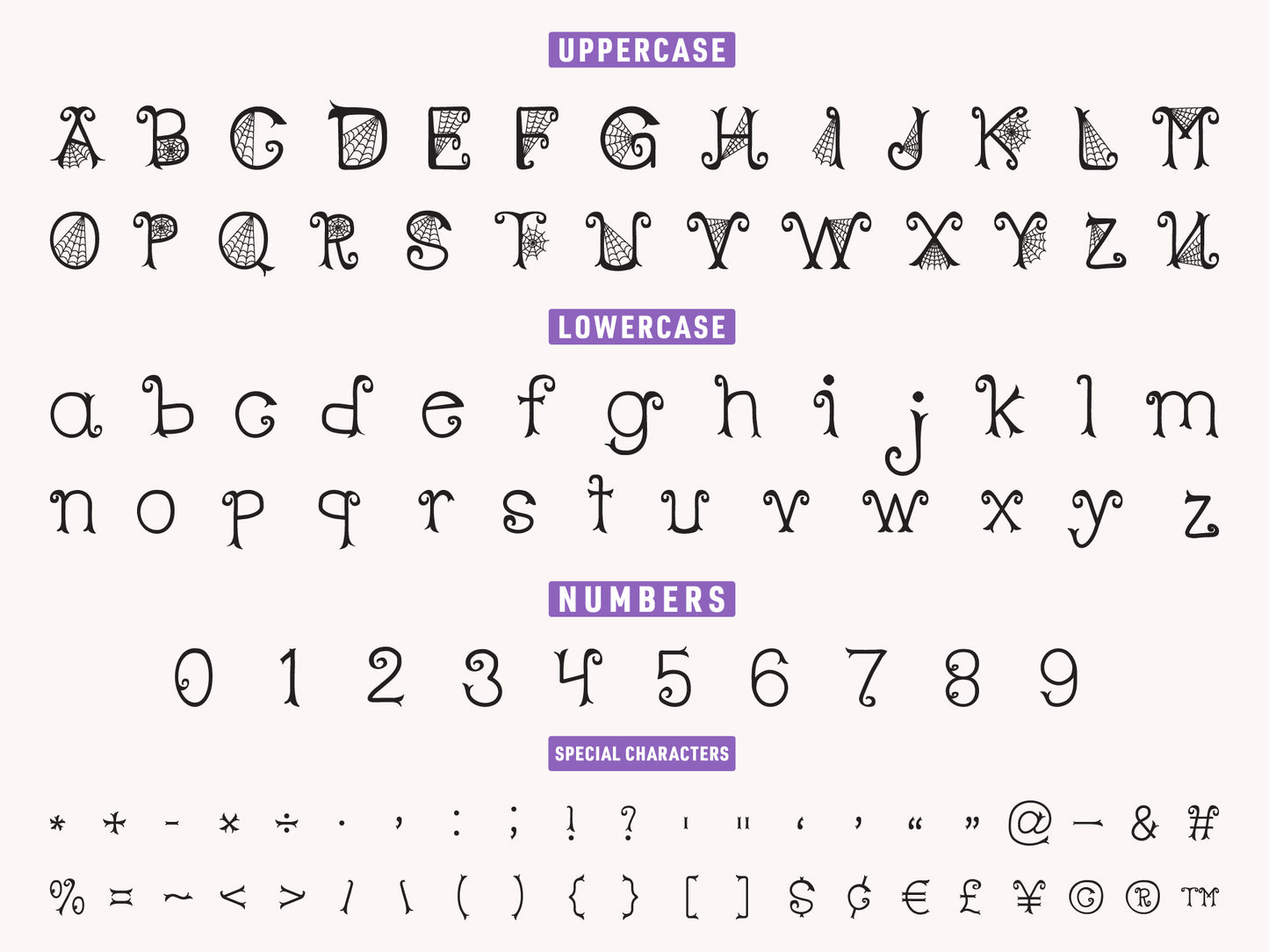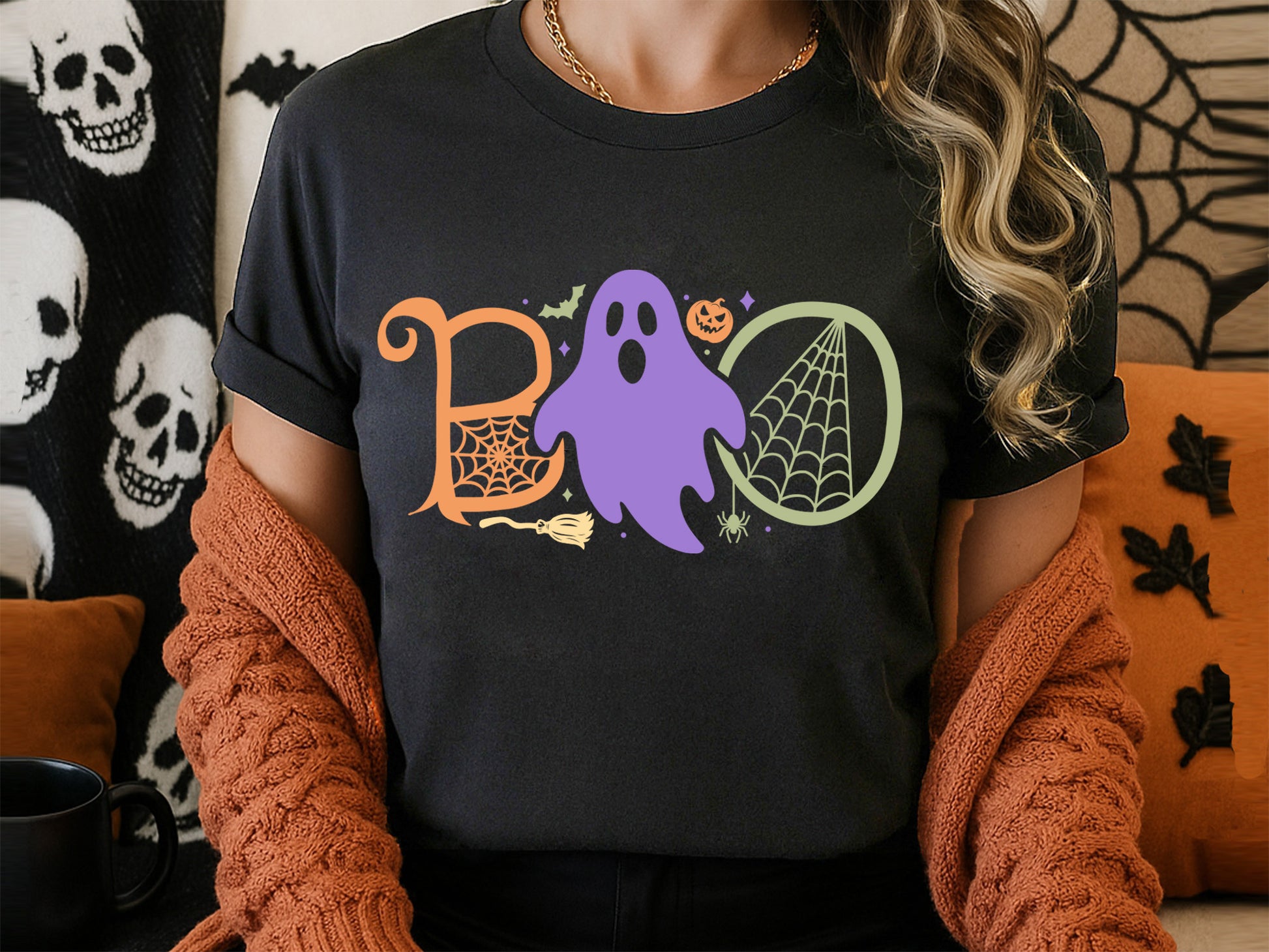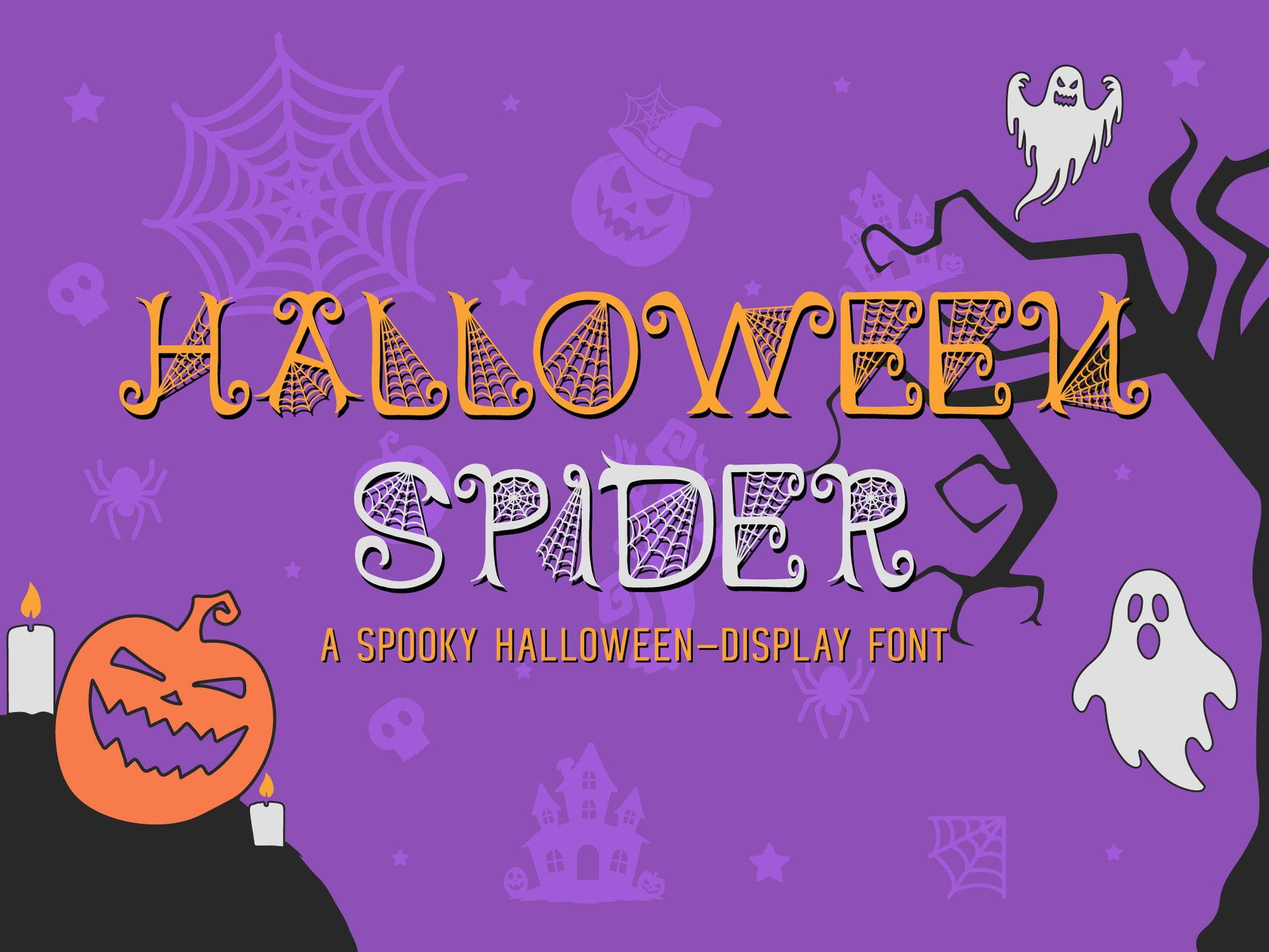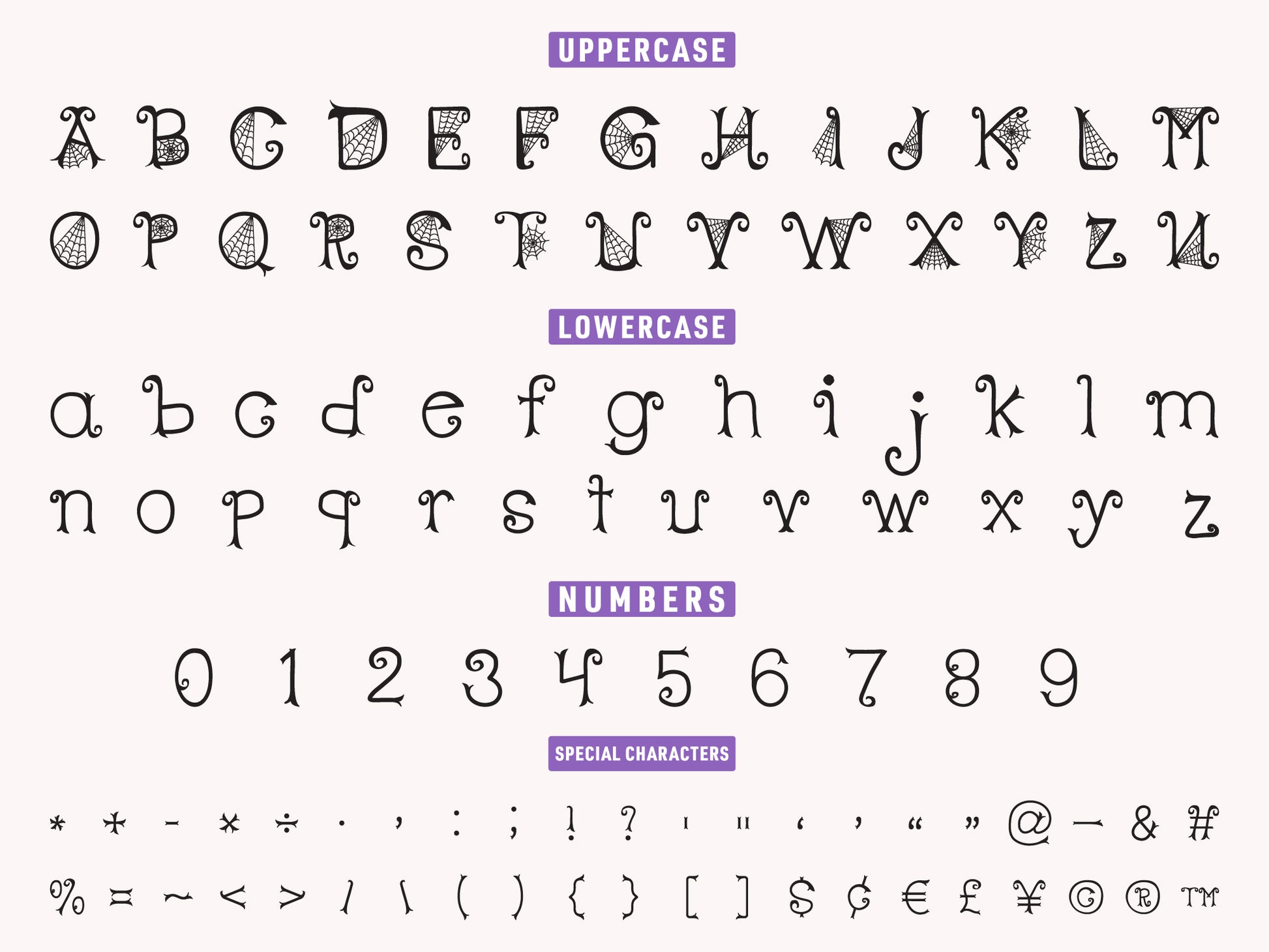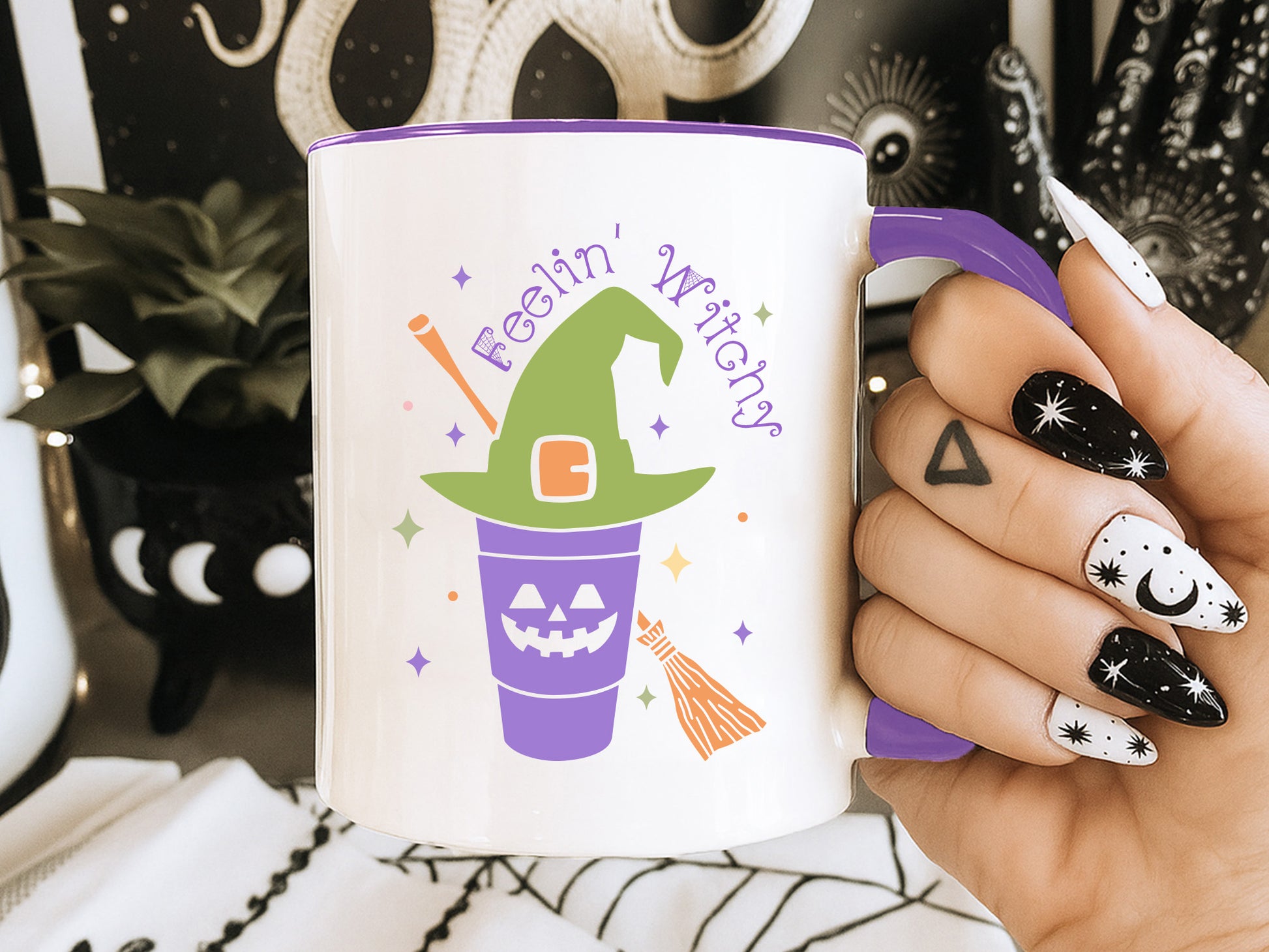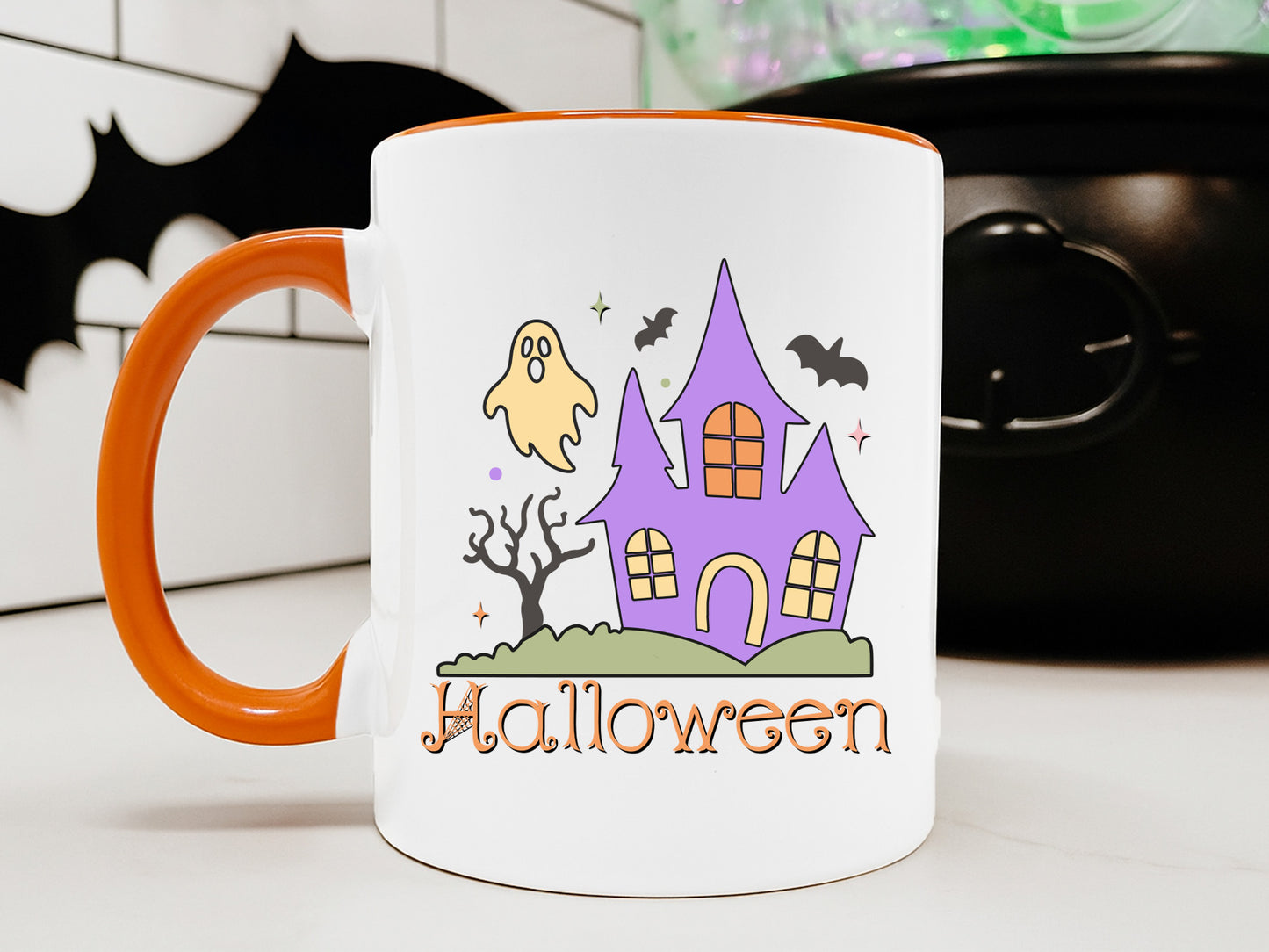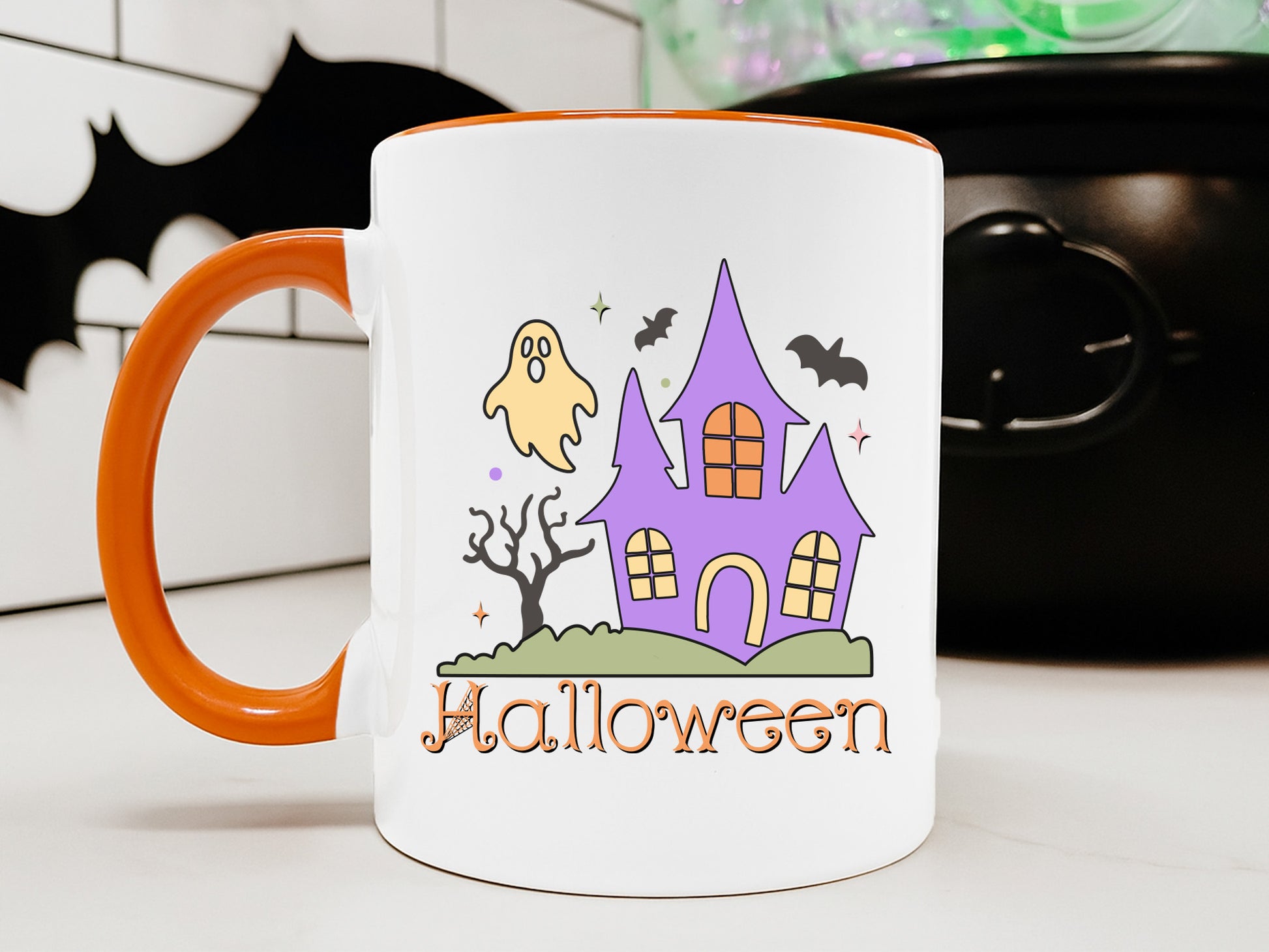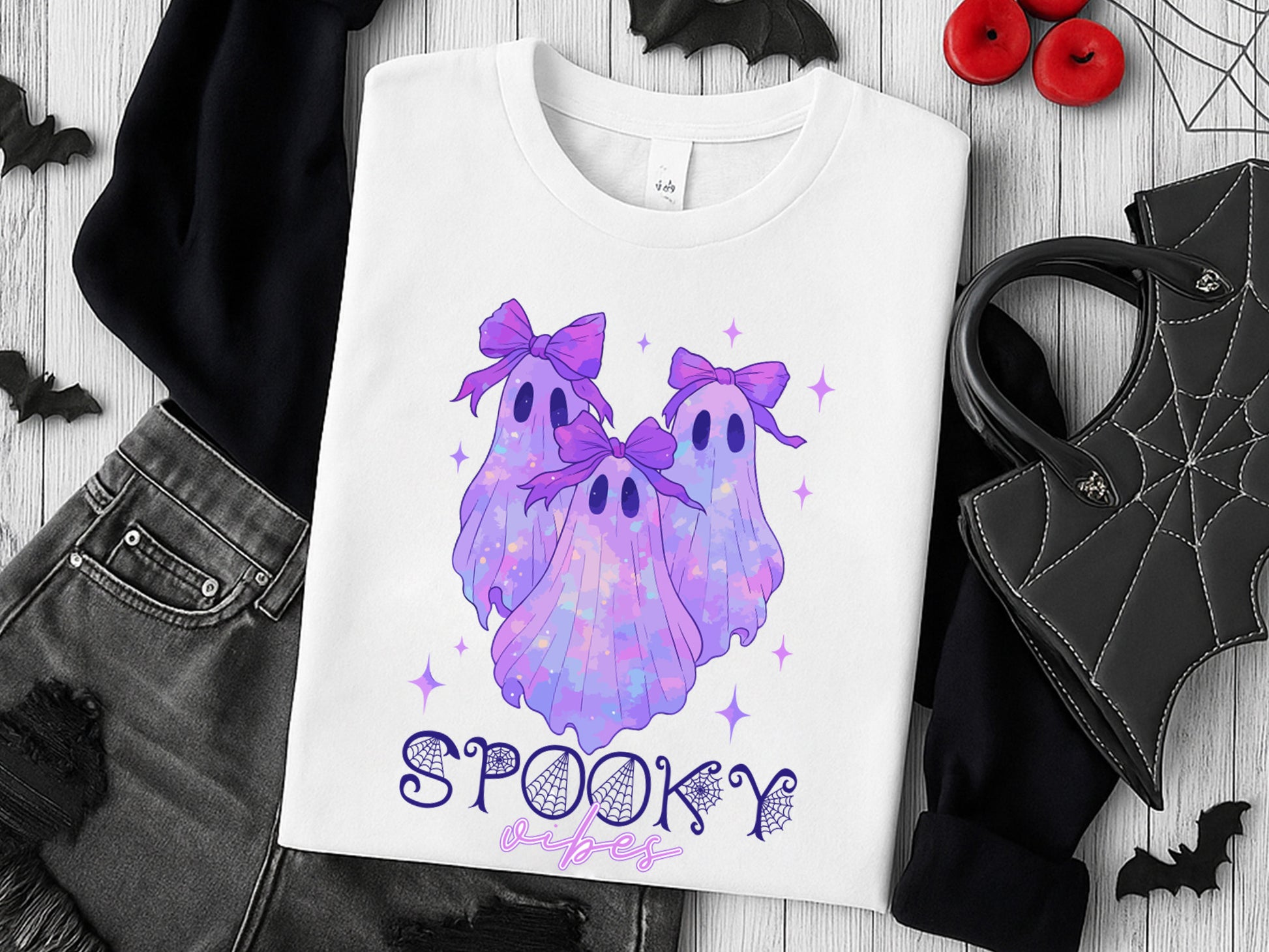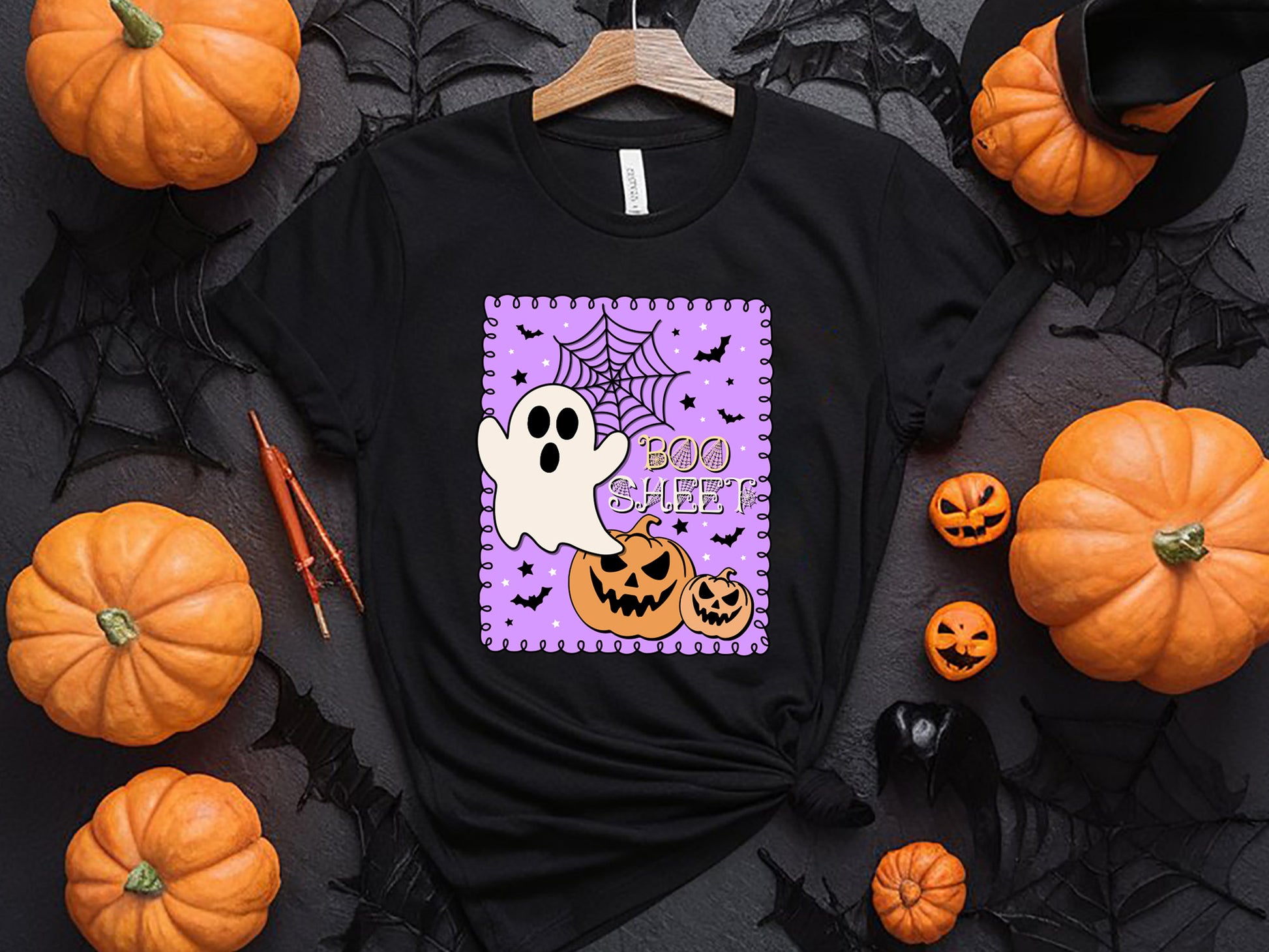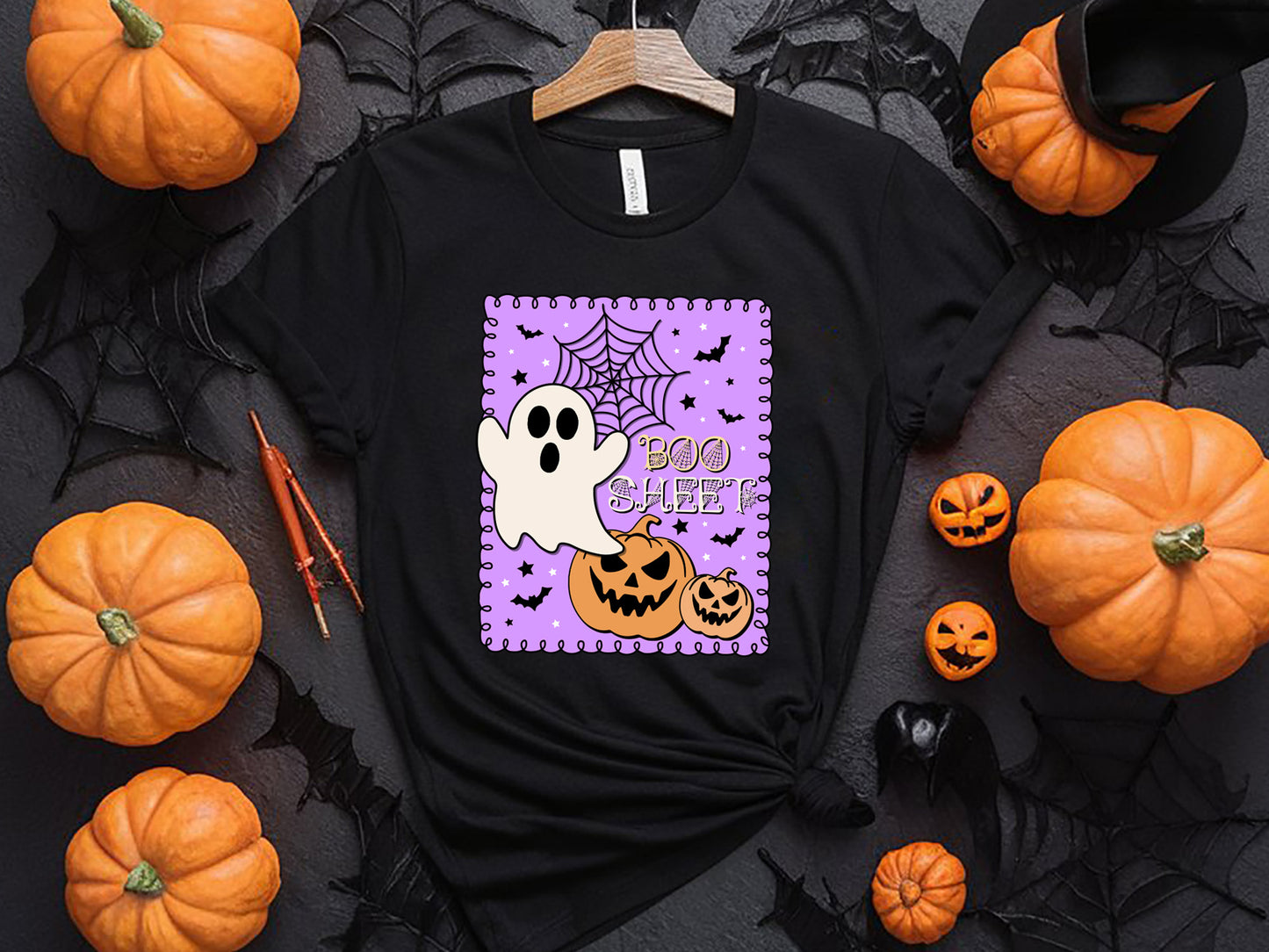
Halloween Spider - A Spooky Display Font
Introducing Halloween Spider – a spooky display font that’s just right for all your eerie design projects. This bold and whimsical typeface adds a creepy flair to your work, making it perfect for party invitations, posters, flyers, crafts, t-shirts, mugs, tote bags, and so much more. Designed to grab attention, this Spooky Halloween Display Font captures the fun and fright of the season while still being charming. You’ll find both OTF and TTF files included, so it’s super easy to use with your favorite design software. If you’re creating for print or digital, this font brings the perfect haunted atmosphere to any project. The Spooky Halloween Display Font is a fantastic choice for crafters, designers, and DIY enthusiasts, and it pairs beautifully with spooky graphics and seasonal themes.